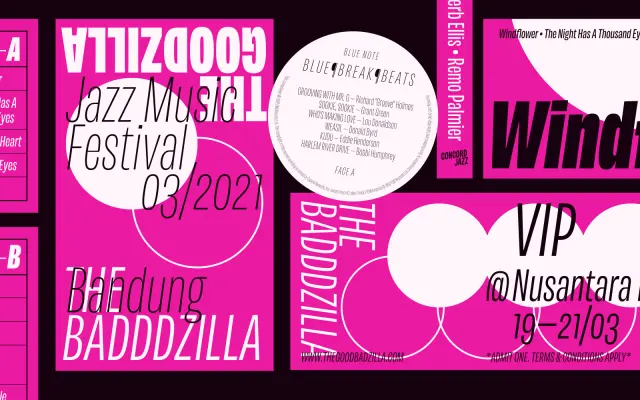
A nine-weight humanist sans-serif from Tokotype, available in static and variable formats with full italic coverage and broad Latin character support.
The family runs from Thin to Black across upright and italic styles, with variable font versions for both axes. Character coverage extends through Latin Extended-A, Latin Extended-B and Latin Extended Additional, making it well-suited to multilingual European typography. Each style is sold individually at a flat rate, giving buyers flexibility across the full weight range.
The letterforms shown across the specimen suggest a humanist sans-serif construction with optical warmth; the broad weight range and variable axis support point to a contemporary text and display family in that tradition.